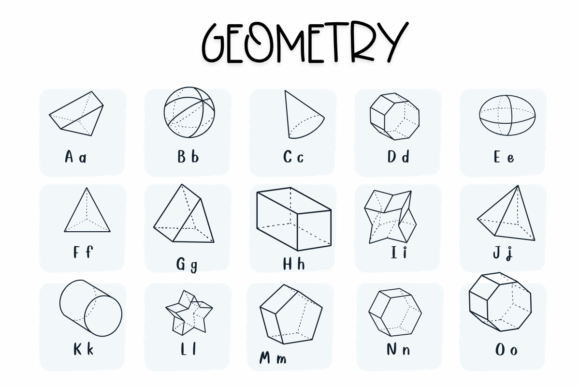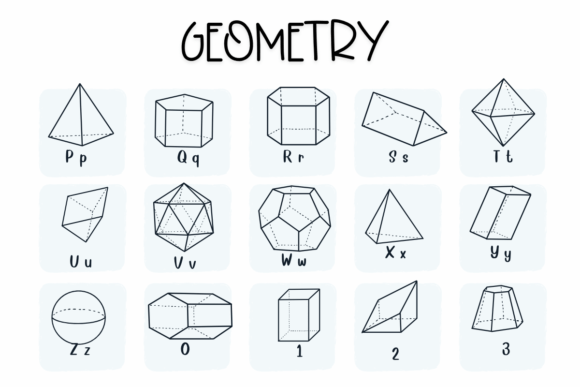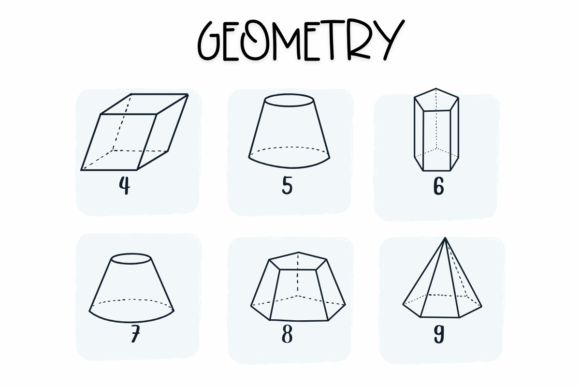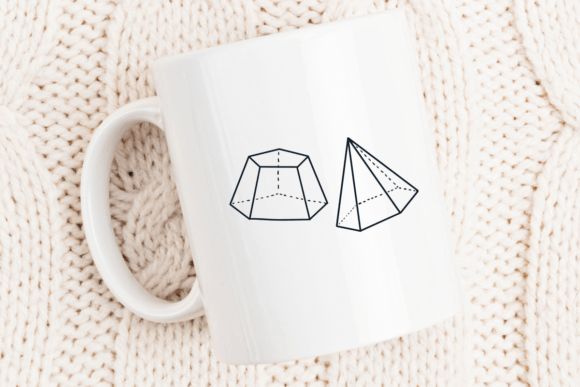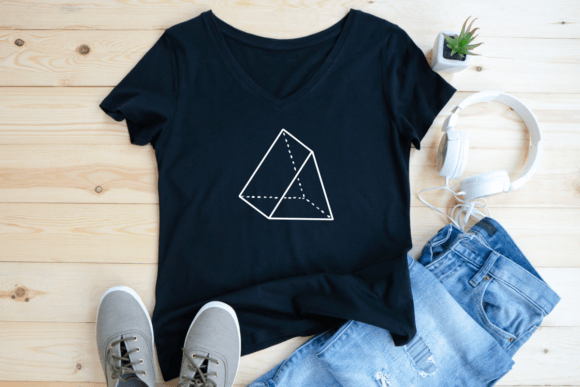
Introducing Geometry Font: Elevate Your Creative Projects with a Sketched Twist
In the world of typography, fonts play a crucial role in bringing creative visions to life. For designers, crafters, and DIY enthusiasts, finding the right font can make all the difference in transforming a project from ordinary to extraordinary. This is where Geometry Font comes into play – a unique dingbats font with a sketched theme that can add a touch of personality and whimsy to various creative endeavors.
What is Geometry Font?
Geometry Font is a specially designed dingbats font that features a sketched aesthetic. Unlike traditional fonts, dingbats fonts are comprised of symbols, shapes, and illustrations, making them perfect for adding visual interest to projects. Geometry Font takes this concept a step further with its hand-sketched feel, giving it a distinct, handcrafted charm.
Uses for Geometry Font
The versatility of Geometry Font makes it an excellent addition to a wide range of creative projects. Here are some ideas to get you started:
- Wedding Invitations: Add a personal touch to your wedding stationery with Geometry Font. Use it to create custom illustrations, decorate borders, or highlight important details.
- DIY and Crafts: Whether you’re working on handmade cards, scrapbooking, or other paper crafts, Geometry Font can help you add a unique, artistic flair.
- Decorations: Use Geometry Font to create custom wall art, garlands, or other decorative elements that reflect your personal style.
- Logos and Branding: The distinctive look of Geometry Font makes it an excellent choice for logos, business cards, and other branding materials.
- Social Media Graphics: Elevate your social media presence with custom graphics featuring Geometry Font. Create eye-catching posts, stories, and banners that showcase your creativity.
Benefits of Using Geometry Font
So, what sets Geometry Font apart from other dingbats fonts? Here are some benefits that make it a valuable addition to your design toolkit:
- Unique Aesthetic: The hand-sketched theme of Geometry Font gives it a distinctive look that can help your projects stand out.
- Ease of Use: As a dingbats font, Geometry Font is easy to use and can be incorporated into various design software and applications.
- Customization: With Geometry Font, you can mix and match different symbols and illustrations to create a look that’s tailored to your project.
- Scalability: The font is designed to be scalable, ensuring that it remains clear and legible even at smaller sizes.
Tips for Getting the Most out of Geometry Font
To maximize the creative potential of Geometry Font, here are some tips to keep in mind:
- Experiment with Color: Don’t be afraid to try out different color schemes and combinations to see what works best for your project.
- Mix and Match: Combine Geometry Font with other fonts and design elements to create a unique visual identity.
- Pay Attention to Size: Make sure to adjust the size of the font according to the specific requirements of your project.
- Have Fun: Most importantly, enjoy the process of creating and experimenting with Geometry Font!
Geometry Font is a versatile and creative dingbats font that can add a personal touch to a wide range of projects. With its unique sketched theme and ease of use, it’s an excellent choice for designers, crafters, and DIY enthusiasts looking to elevate their creative endeavors. Whether you’re working on wedding invitations, DIY crafts, or logos, Geometry Font is sure to inspire and bring your vision to life.